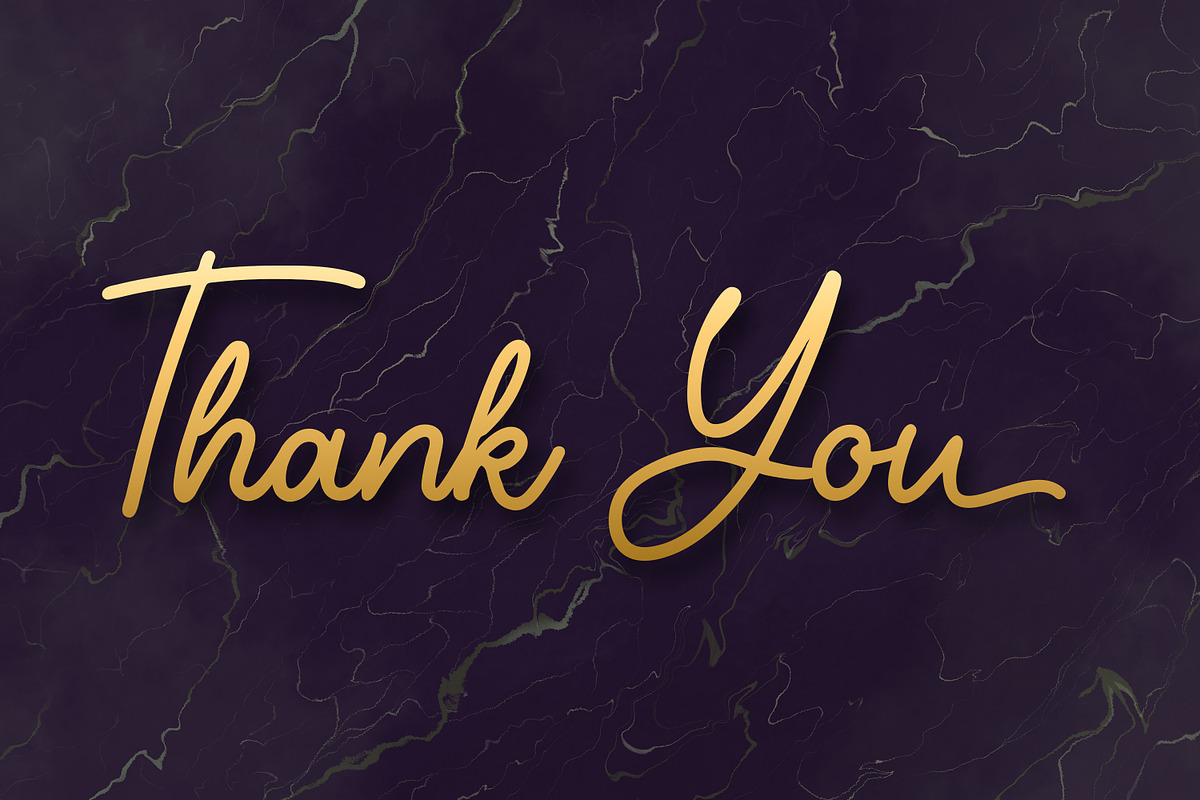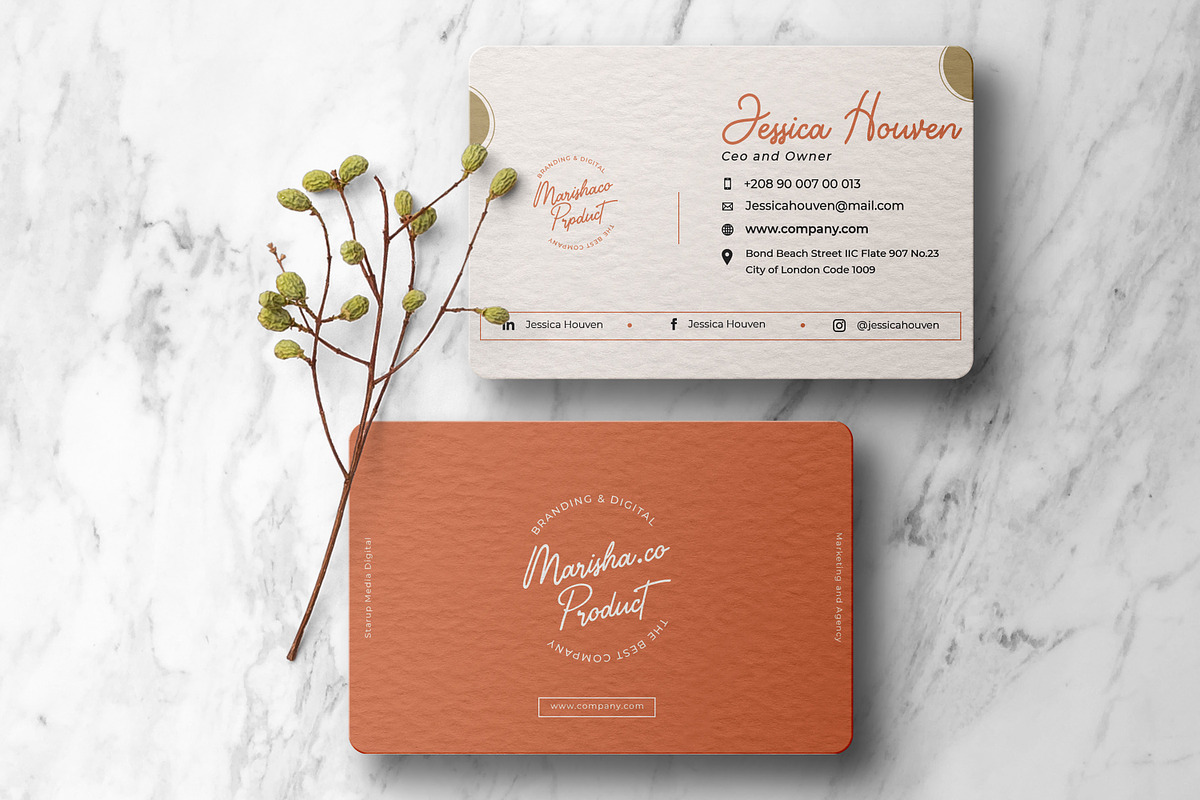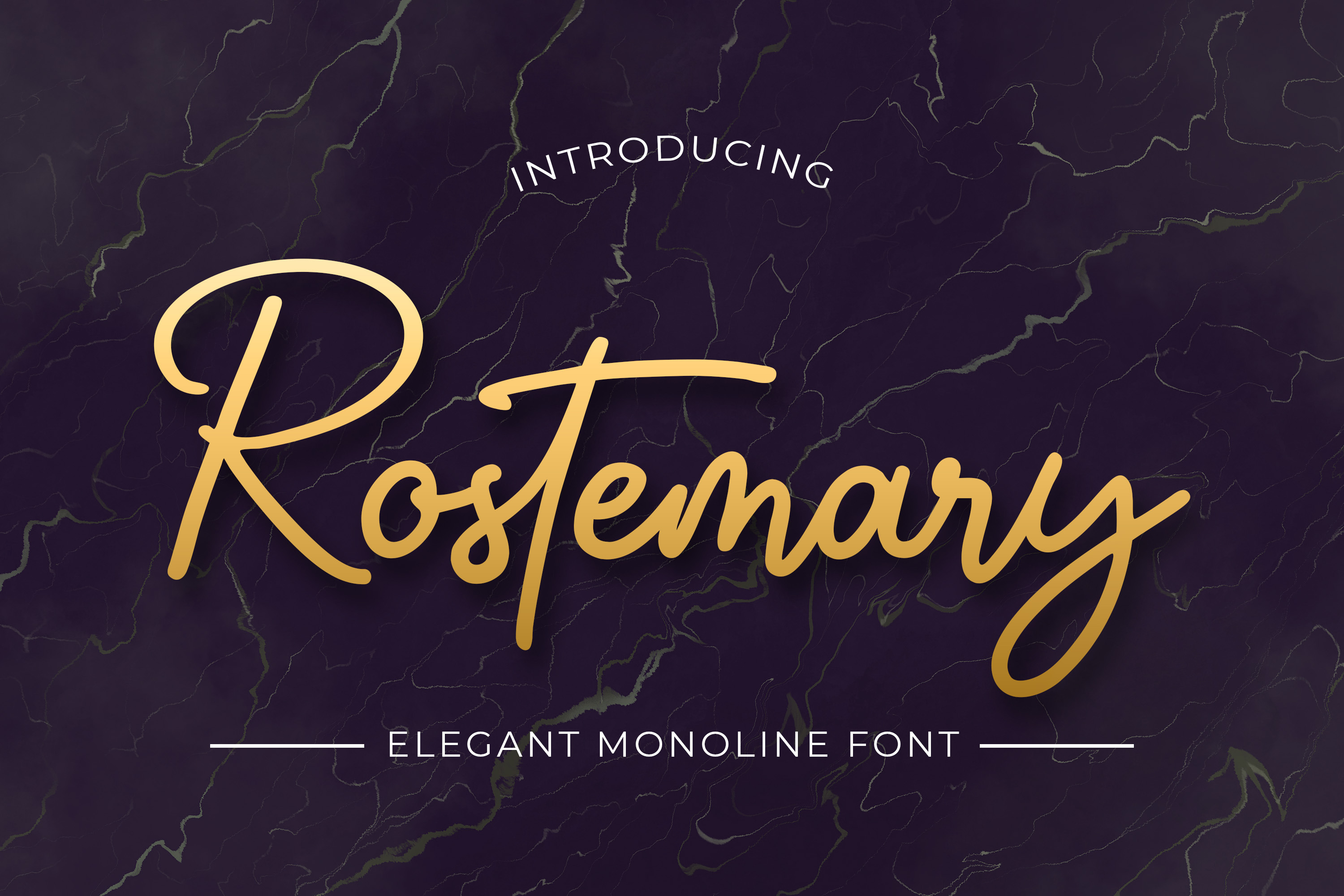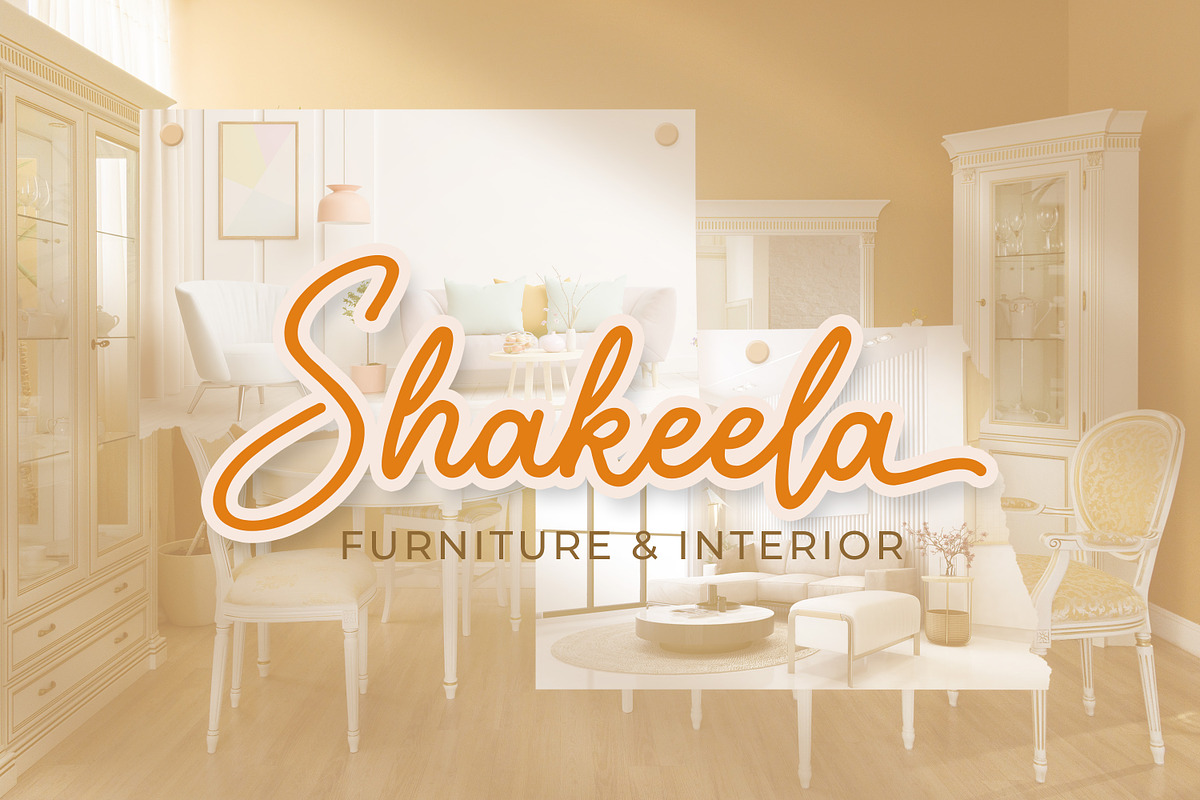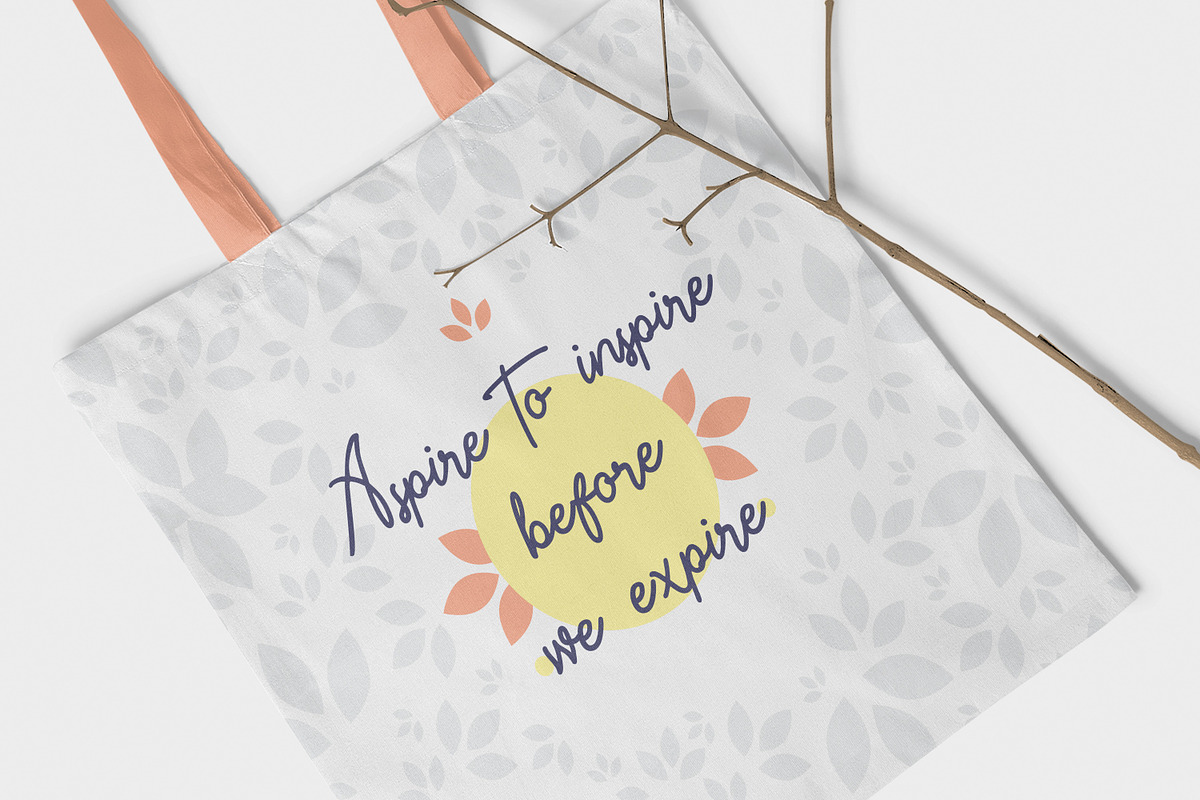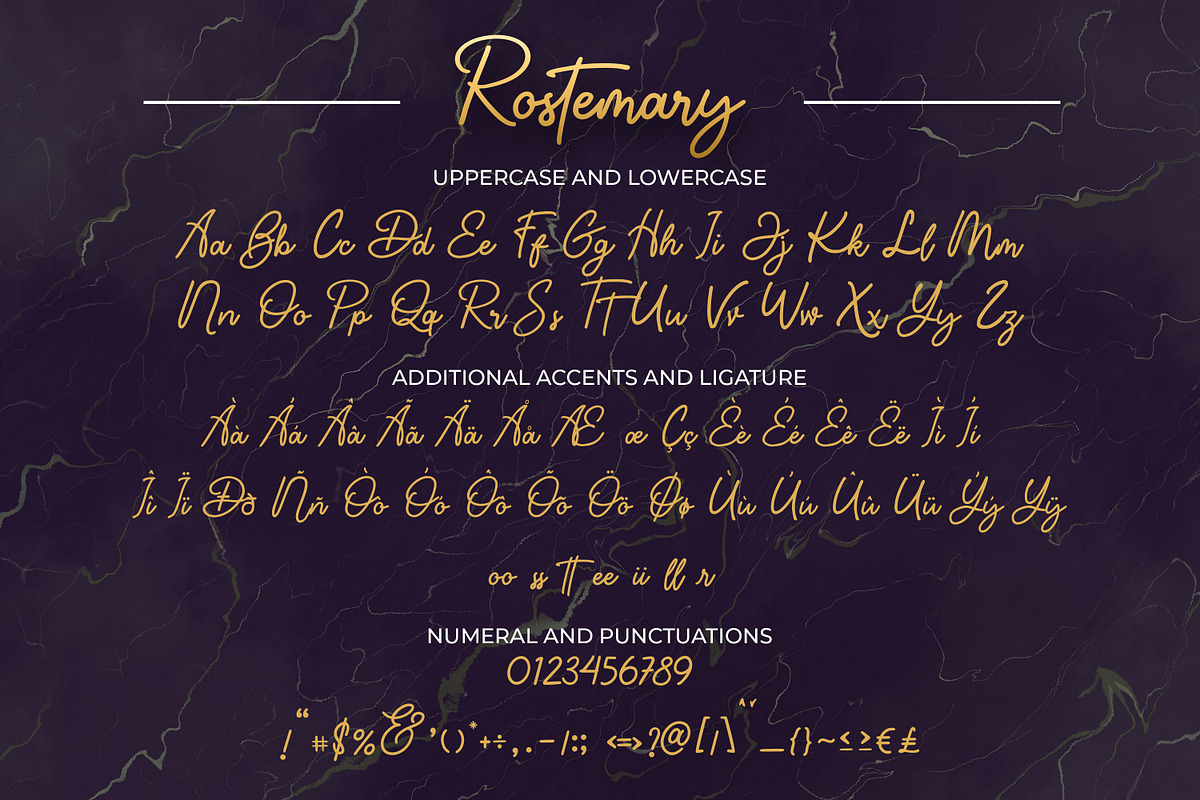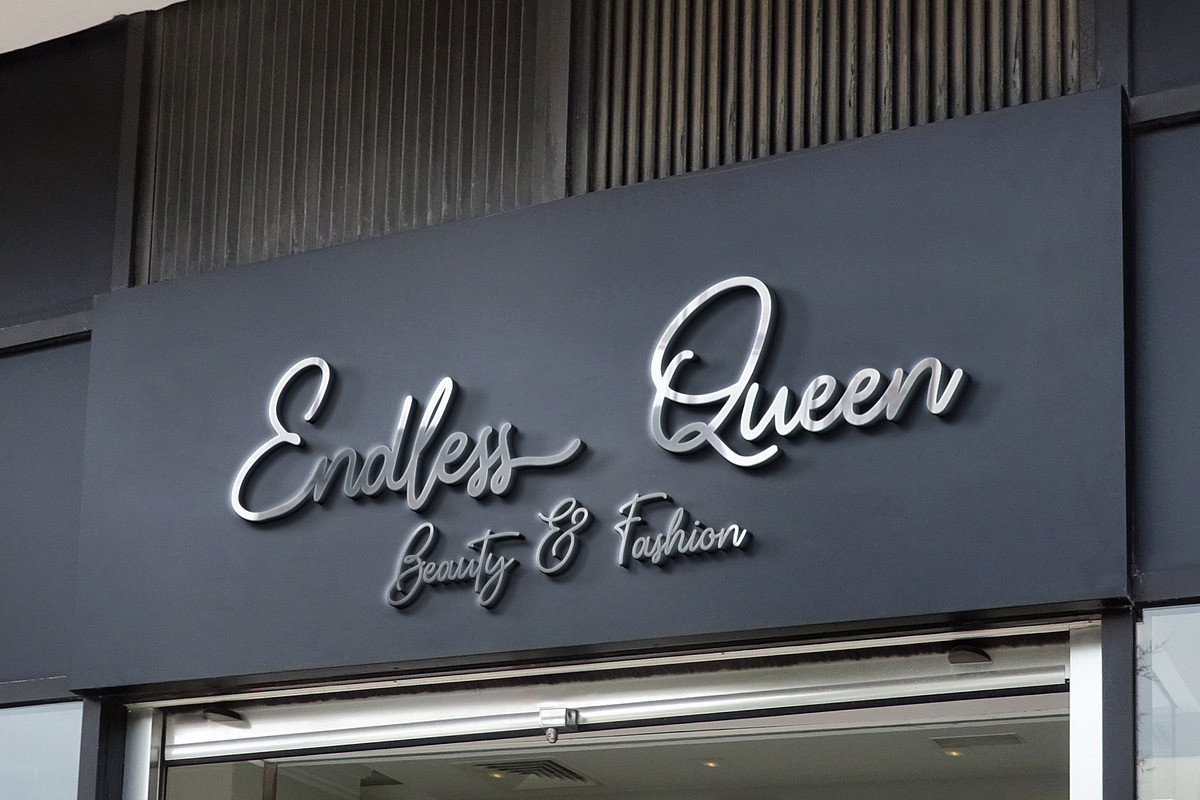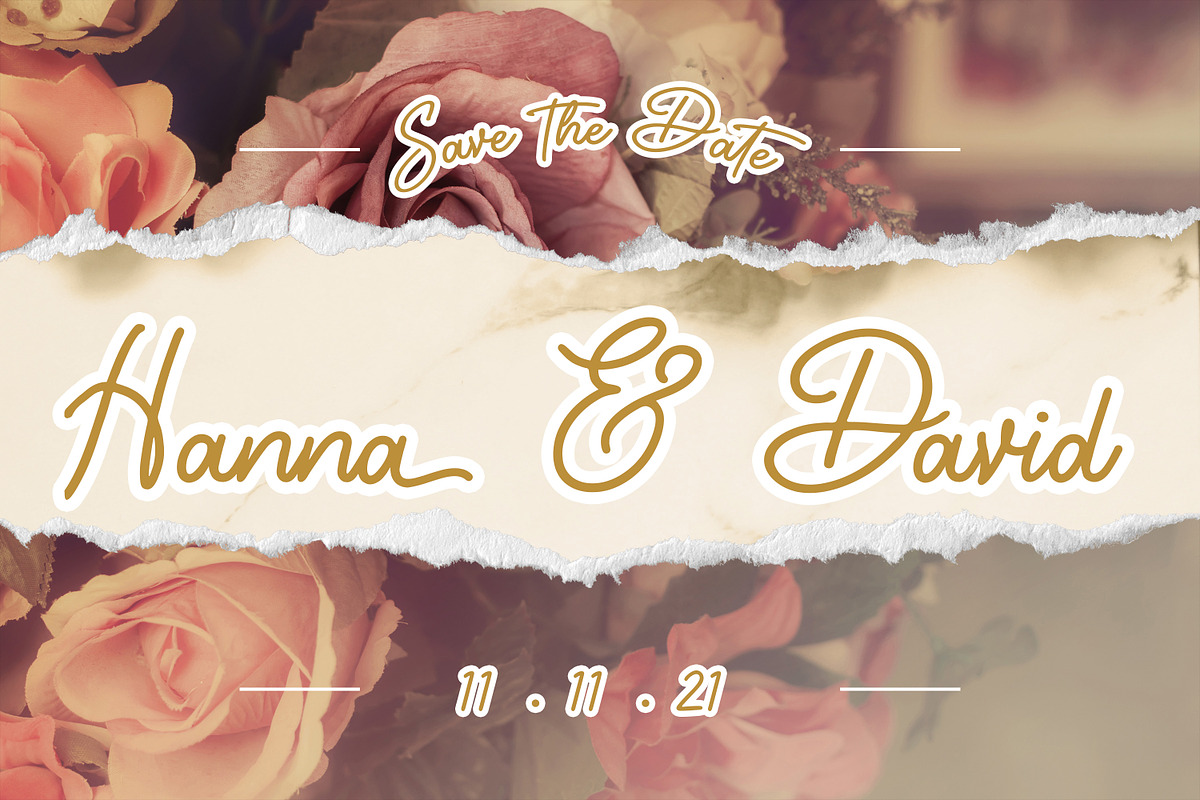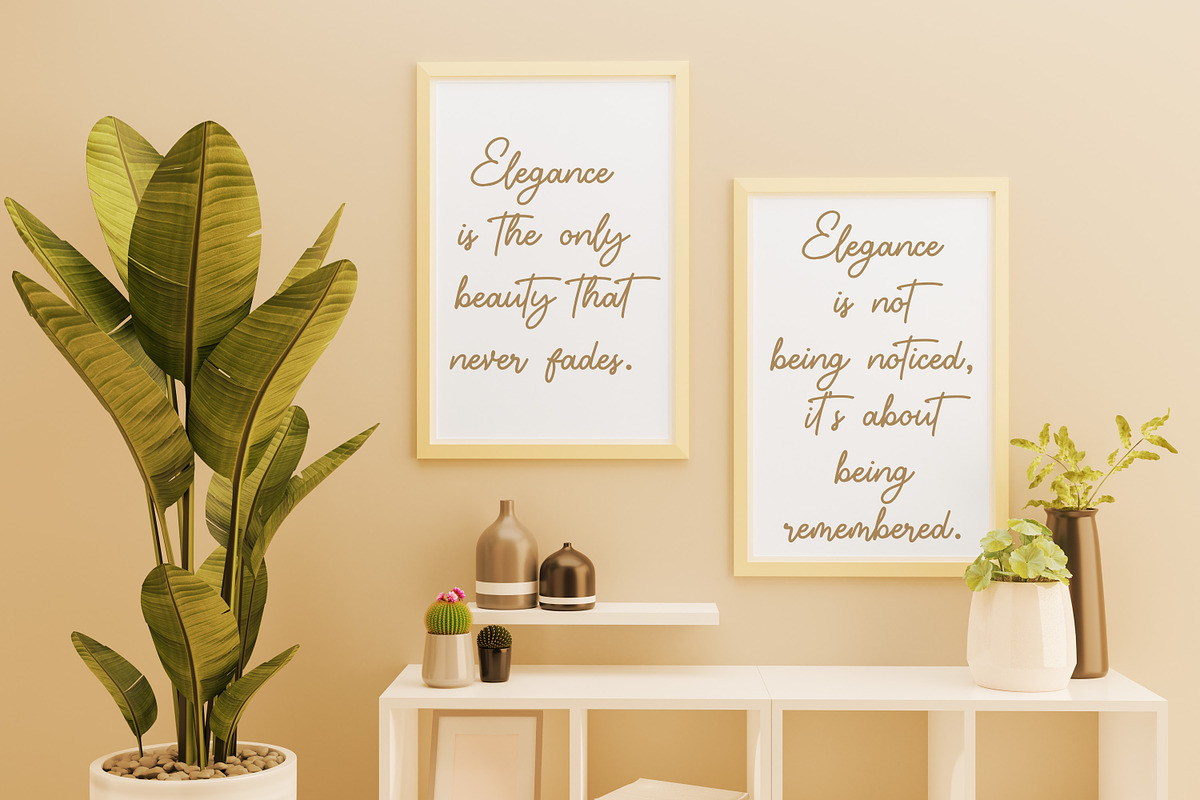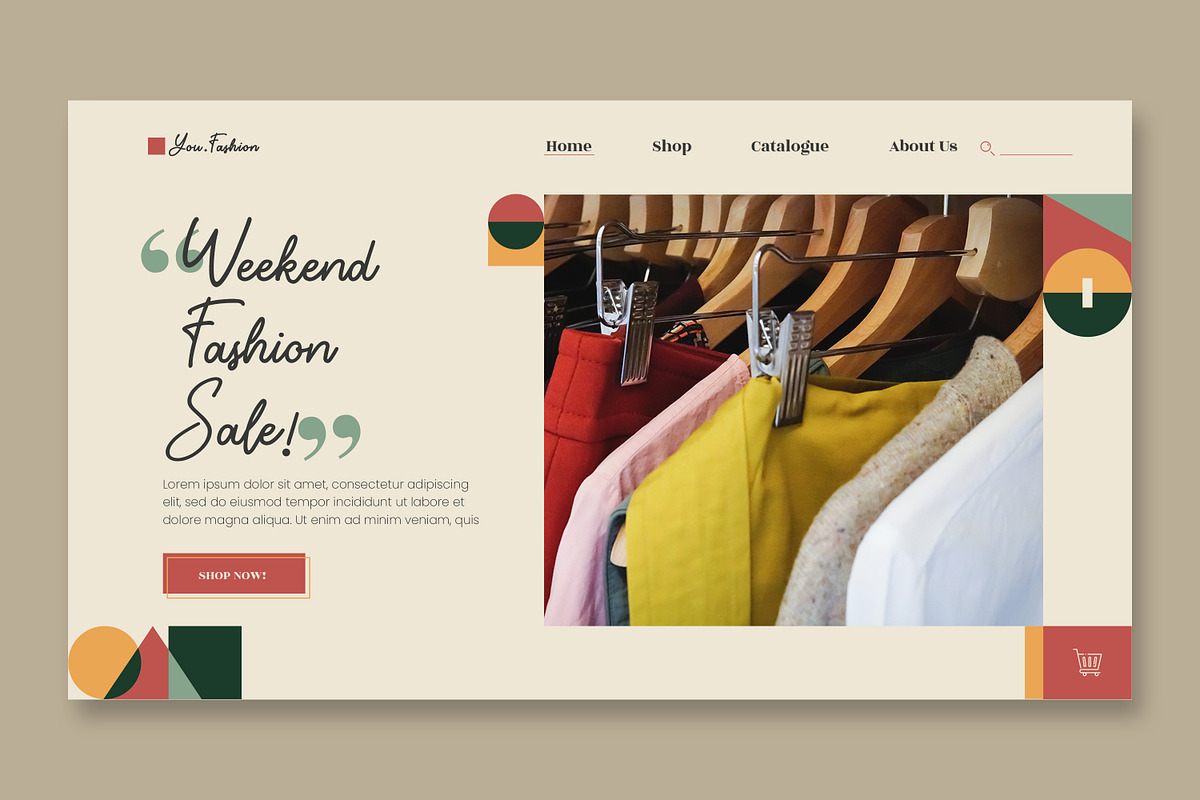
Rostemary - Elegant Monoline Font
Rostemary - Elegant Monoline Script , this font is great for your creative projects such as watermark on photography, and perfect for logos & branding, photography, invitation, watermark, advertisements, product designs, stationery, wedding designs,label, product packaging, special events or anything that need Signature taste.